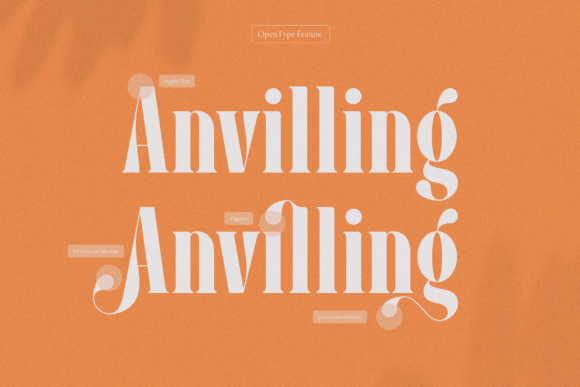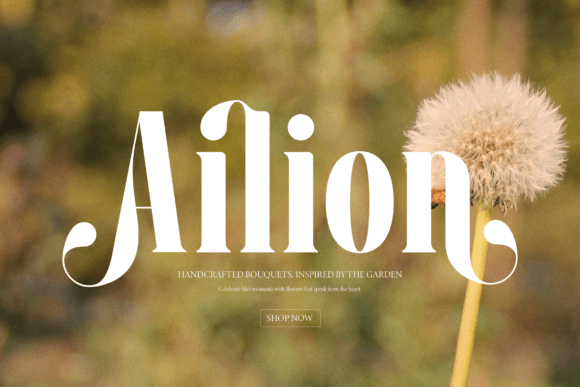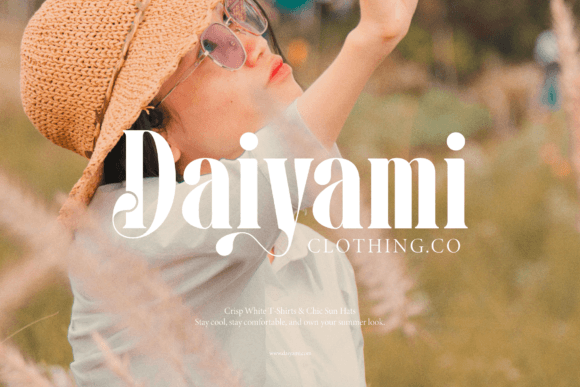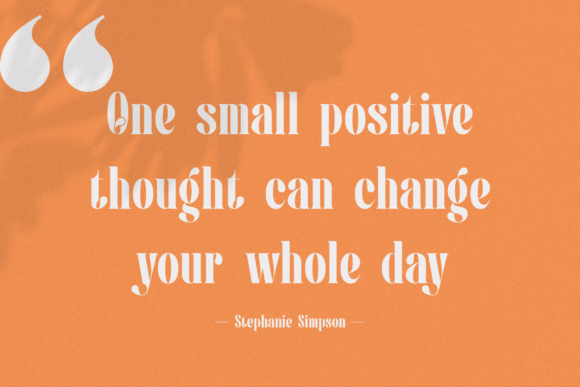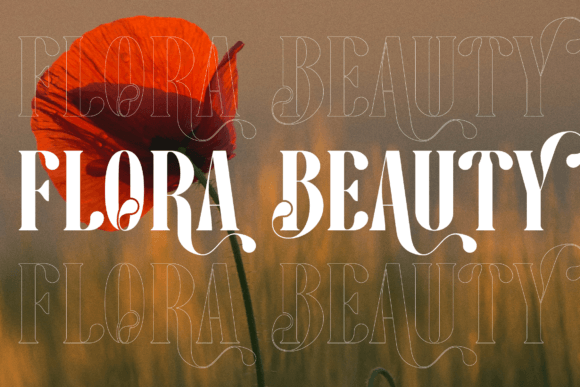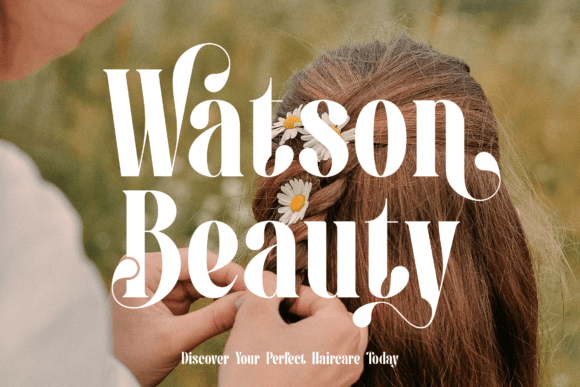
Introduction to Pany Anemov Font
Pany Anemov is a elegant and stylish serif font, suitable for any projects such as: logos, branding projects, homeware designs, product packaging, mugs, quotes, posters, shopping bags, t-shirts, book covers, name card, invitation cards, greeting cards, label, photography, watermark, special events, and all your other lovely projects that need a Modern Display Serif taste.
Key Features of Pany Anemov Font